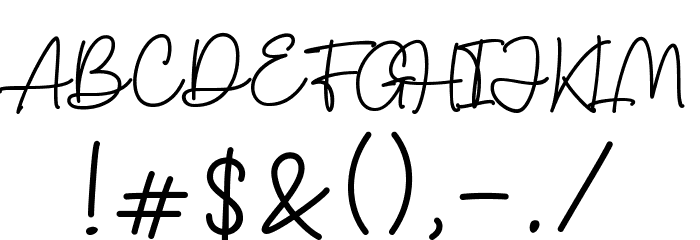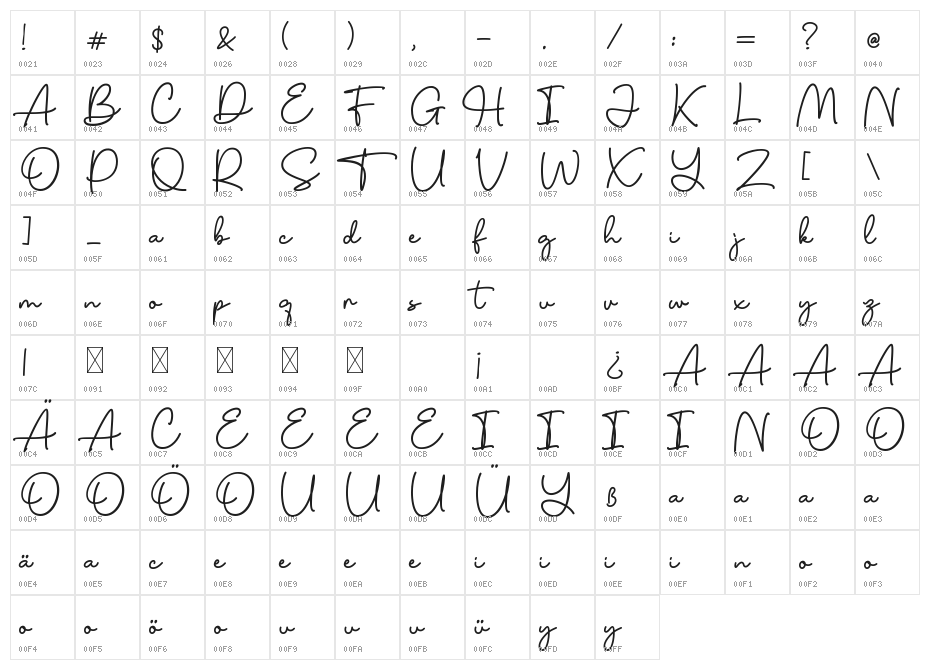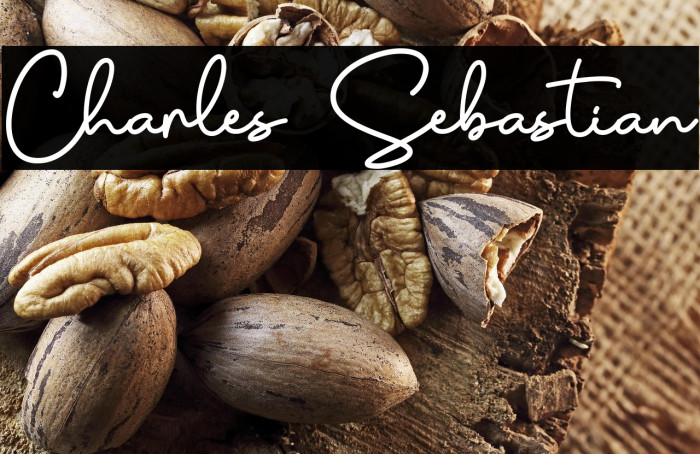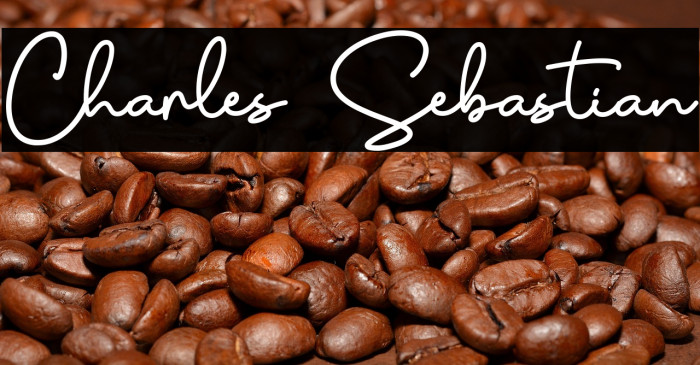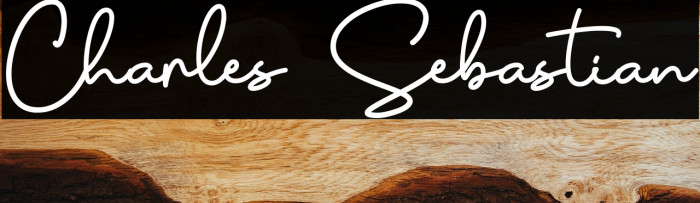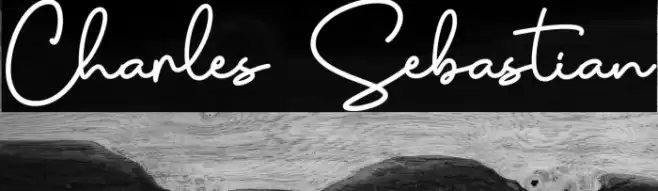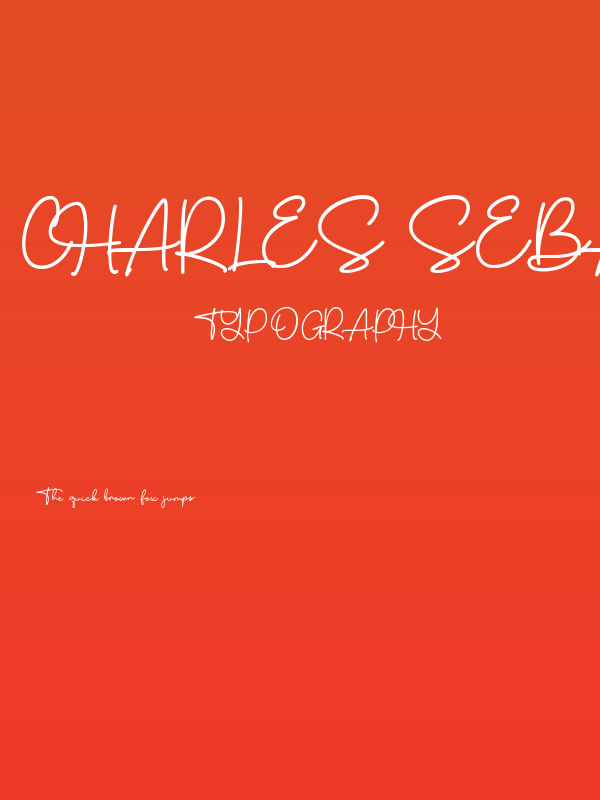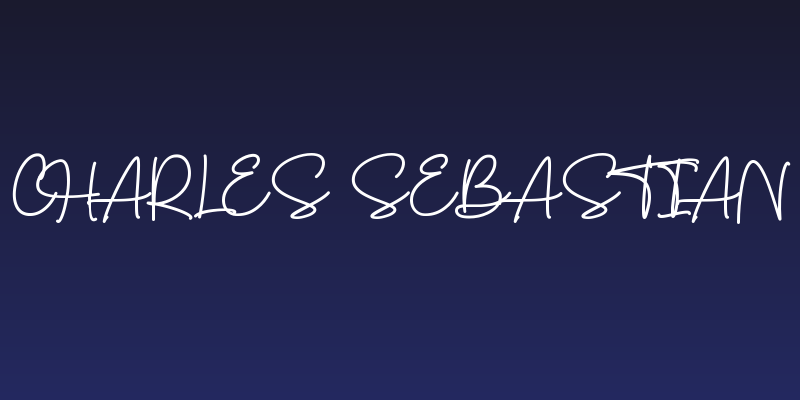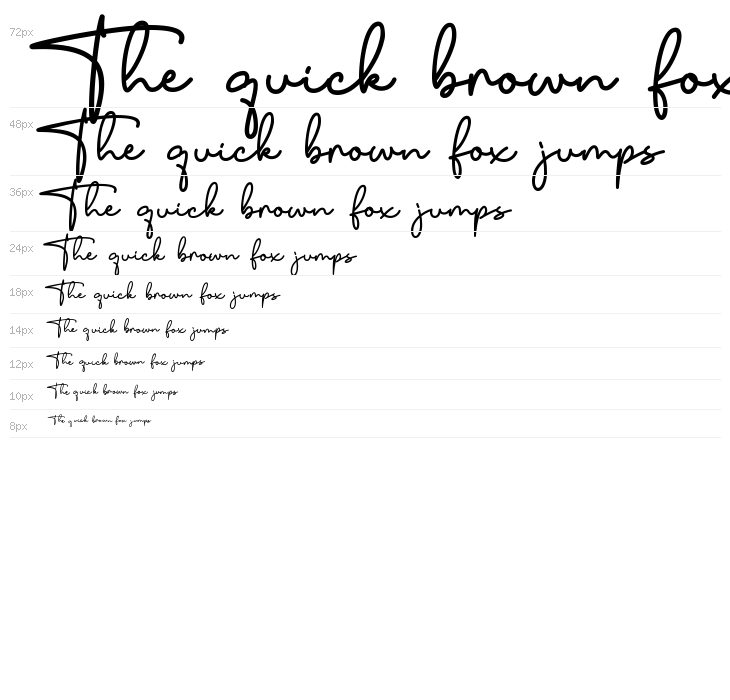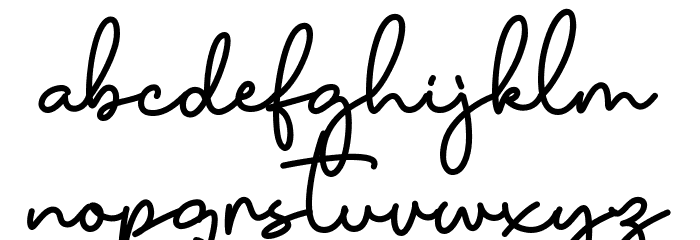
Charles Sebastian Font
Charles Sebastian Description
This font features a lively and dynamic handwritten style, characterized by its fluid and continuous strokes. The letters are interconnected, giving a sense of movement and personal touch. The uppercase letters maintain a consistent height, while the lowercase letters vary slightly, adding to the casual and informal appearance. The font includes a full set of uppercase and lowercase letters, numerals, and a variety of special characters, making it versatile for different uses. Its playful and expressive nature makes it ideal for projects that require a personal or artistic flair.
| Overall Style | Casual, Artistic |
| Proposed Projects | Ideal for personal invitations, greeting cards, artistic branding, and creative social media graphics. |